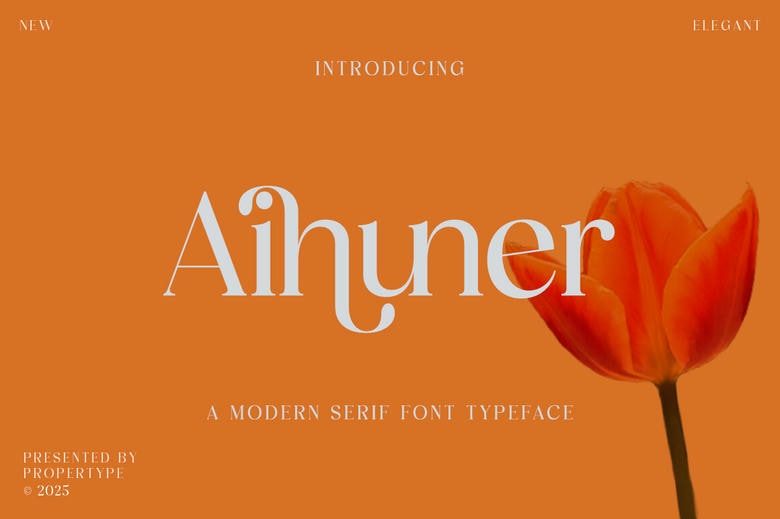
Aihuner is a serif typeface, produced in the Contemporary style, with rather thin sharp lines, defined conical contrast, and pointed serifs. This is quite a traditional serif font with elements that give it a contemporary look and feel.
It is a versatile typeface family that has both the functional and the experimental glyphs. This font can be used for graphic design particularly in the aims of providing classic but clean and unique such as headlines, magazines, logos, packaging, and editorials.
Aihuner Serif Font